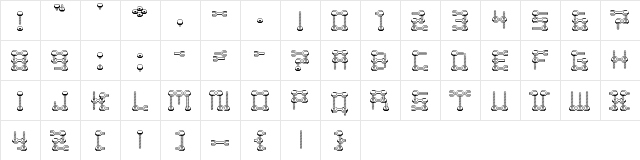
Nuts Bolts And Wrenches Regular
Design Context for Nuts Bolts And Wrenches Typeface
Nuts Bolts And Wrenches is a composed and adaptable typeface that performs quietly and consistently across a wide range of design contexts.